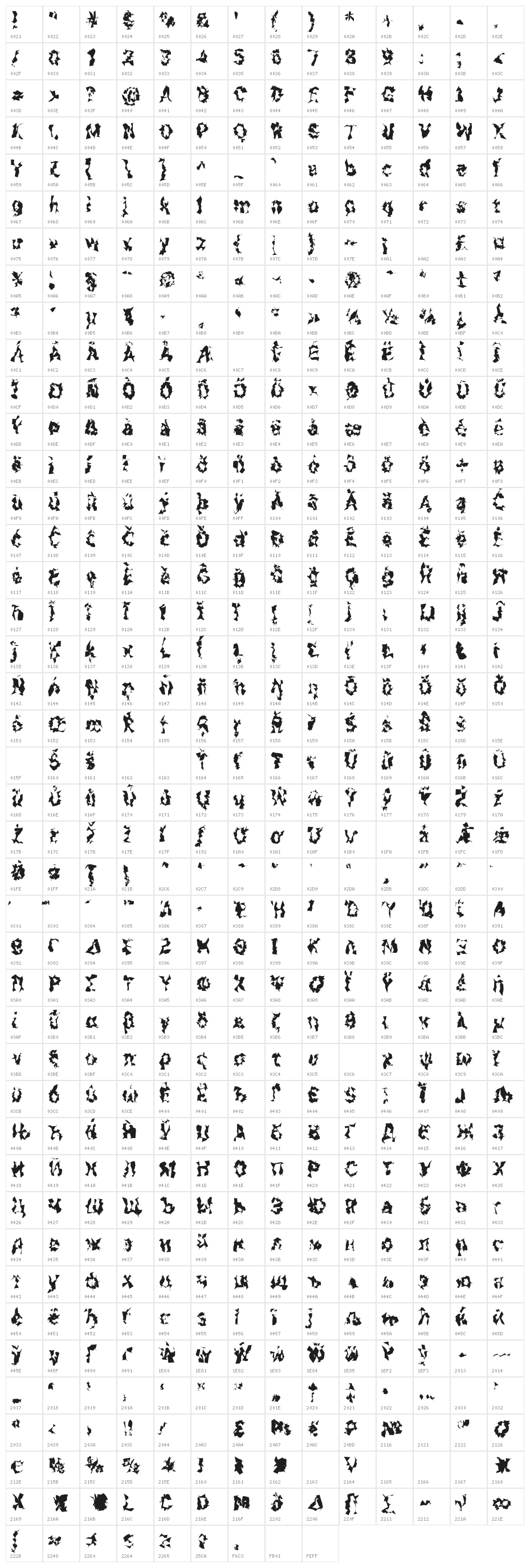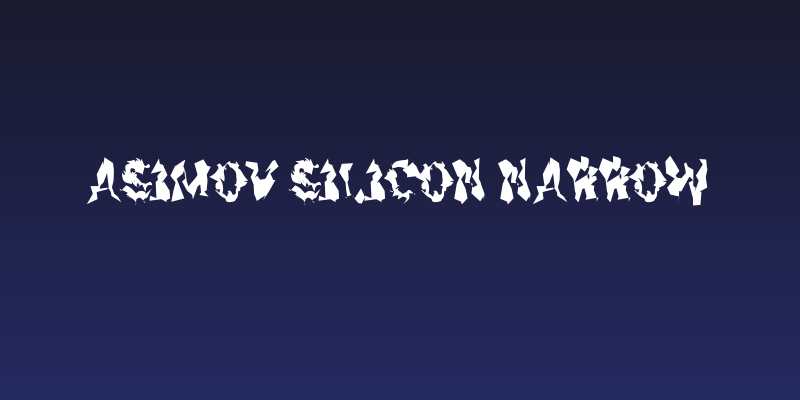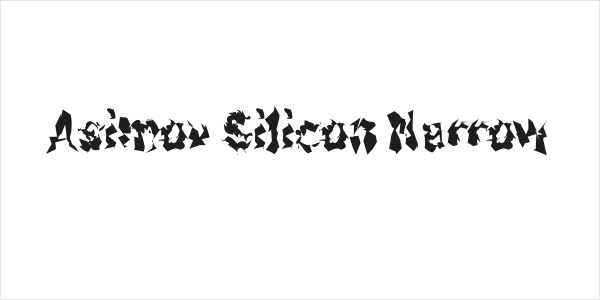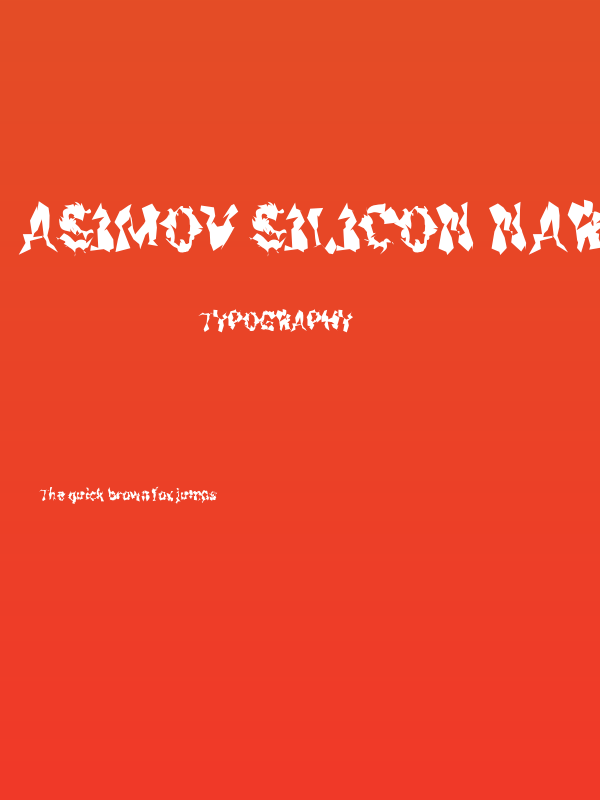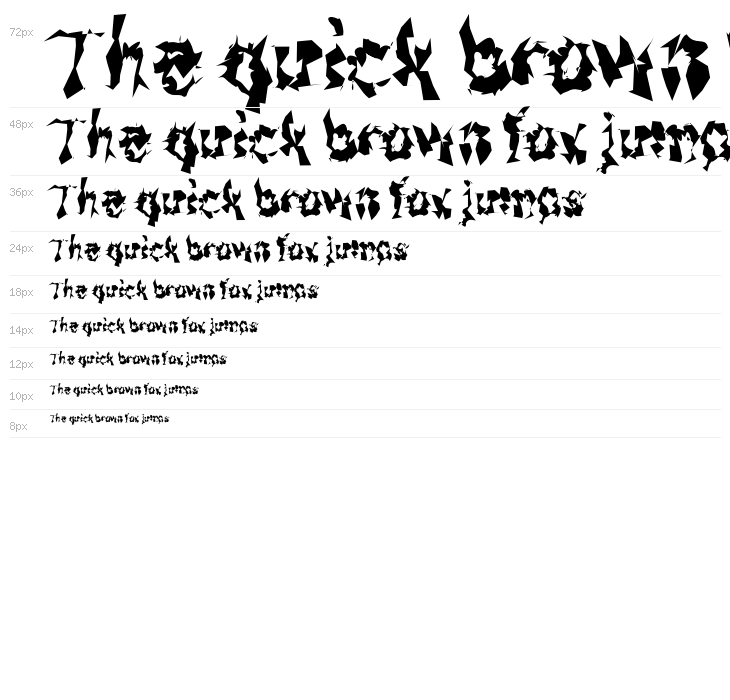
Asimov Silicon Narrow Font
Asimov Silicon Narrow Description
This font features a highly distinctive and fragmented design, characterized by sharp, angular shapes that create a chaotic yet intriguing visual effect. The letters appear as if they are constructed from shattered pieces, giving the font a futuristic and edgy appearance. The uppercase and lowercase letters maintain a consistent style, with each character exhibiting unique cuts and angles. The numbers and special characters follow the same design principles, ensuring a cohesive look across all elements. This font's unconventional style makes it stand out, offering a bold statement in any design project.
| Overall Style | Futuristic, Edgy |
| Proposed Projects | Ideal for sci-fi themed posters, album covers, video game titles, and any project requiring a bold, unconventional typeface. |